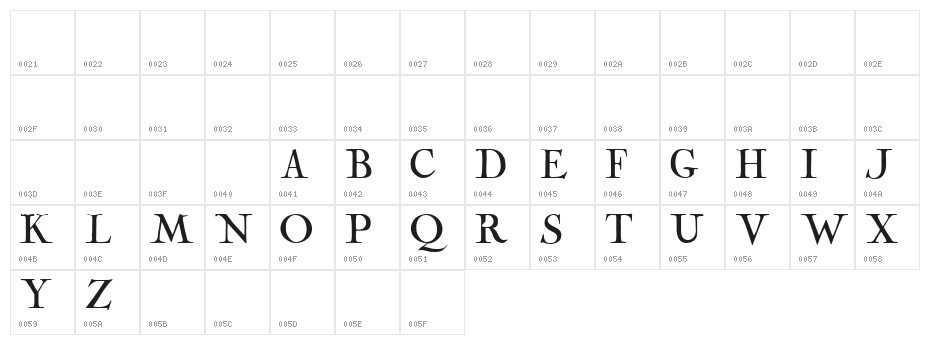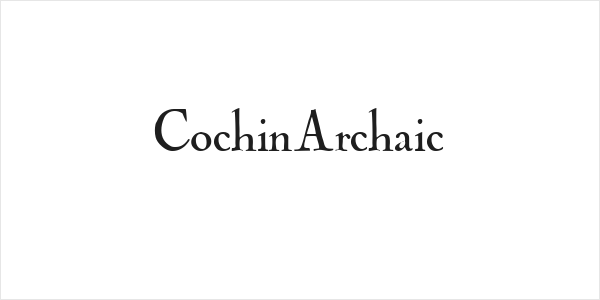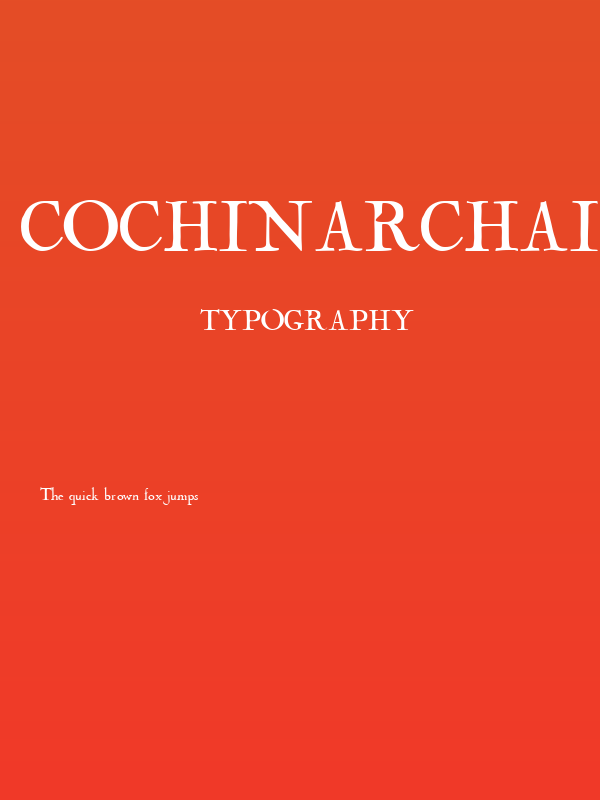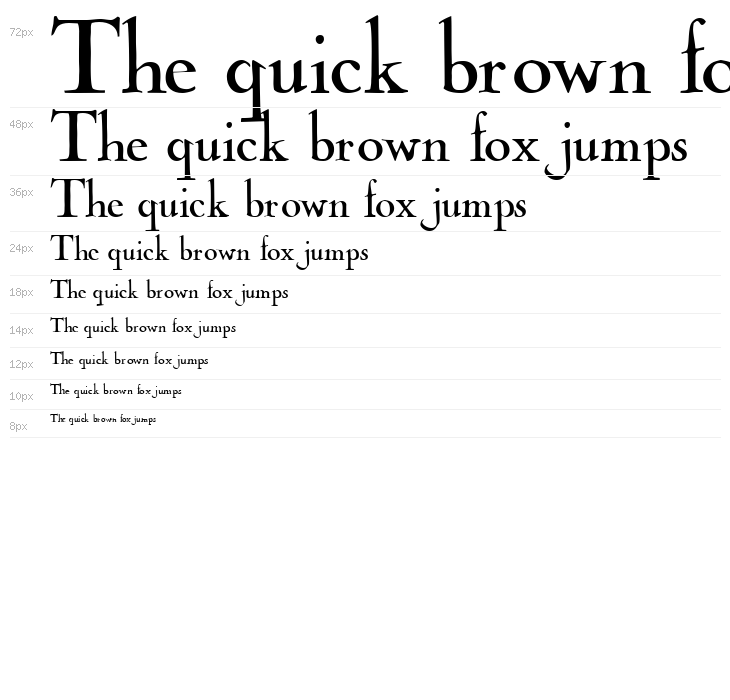
CochinArchaic Font
CochinArchaic Description
This font exhibits a classic serif style with a touch of elegance and sophistication. The characters have a traditional form, featuring distinct serifs that add a sense of formality and refinement. The uppercase letters are bold and commanding, while the lowercase letters maintain a graceful flow with slightly exaggerated curves. The overall design is reminiscent of historical typefaces, offering a timeless appeal. The numerals and special characters are crafted with the same attention to detail, ensuring consistency throughout the typeface. This font is suitable for projects that require a touch of classic elegance and readability.
Overall StyleClassic
Proposed ProjectsIdeal for book covers, formal invitations, historical documents, and branding that requires a classic touch.